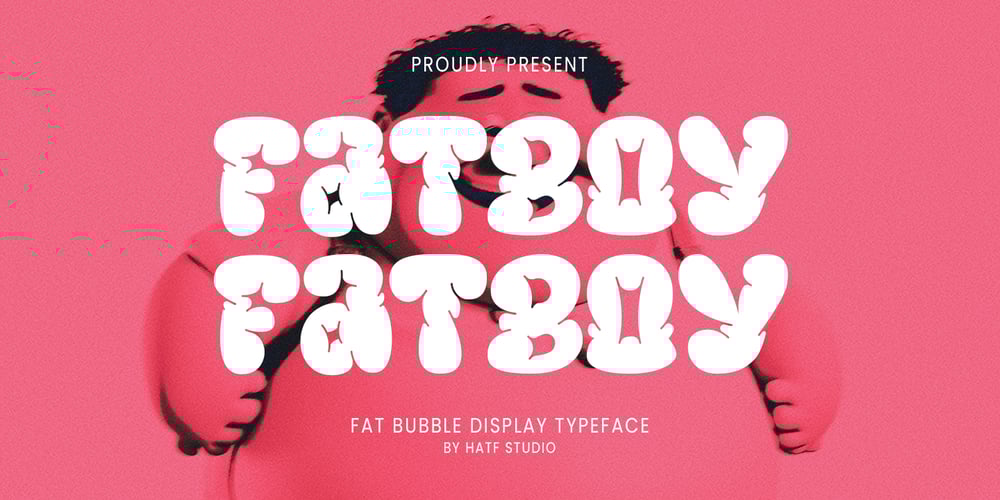
Fat Boy
Fat Boy font
Fat Boy Font Family was designed by Asep Rendi and published by Hatftype. Fat Boy contains 1 styles and family package options. The fat bubble font is a stylish and playful typeface that features rounded and inflated letterforms, resembling bubbles. The letters are often chunky, with exaggerated curves and soft edges, giving them a plump and rounded appearance.This type of font is popular for its fun and whimsical nature, making it suitable for designs targeting a young audience or those looking to create a lighthearted and energetic atmosphere. The thick and rounded letterforms give a sense of friendliness and approachability, adding a touch of playfulness to any text.The fat bubble font is versatile and can be used in various design applications, such as logos, headlines, posters, invitations, stickers, or website headers. It adds a touch of personality and uniqueness to designs, helping them stand out and grab attention.Overall, the fat bubble font is an eye-catching and cheerful typeface that captures the joy and energy of bubbles, making it a popular choice for designs that want to exude a sense of fun and playfulness.